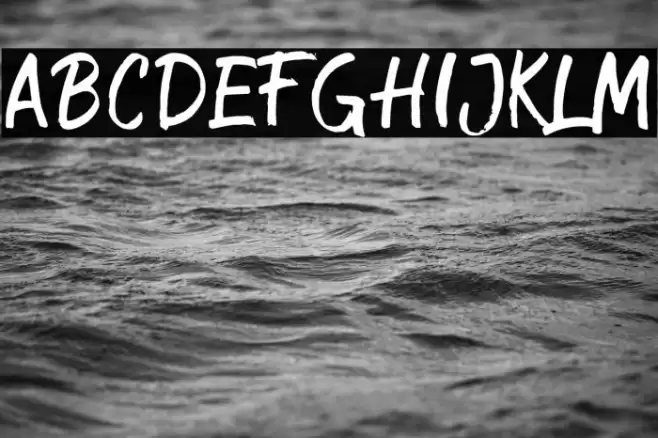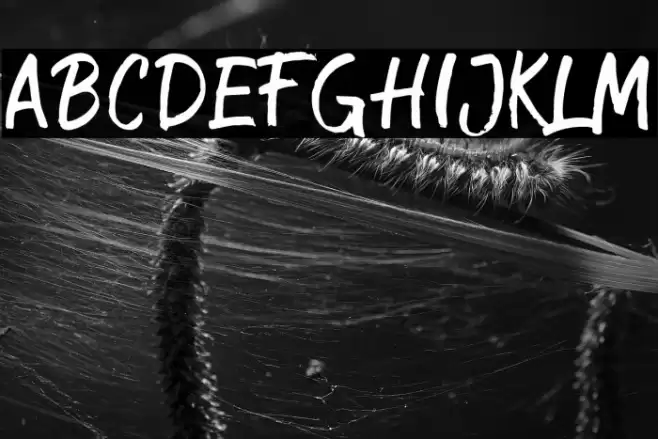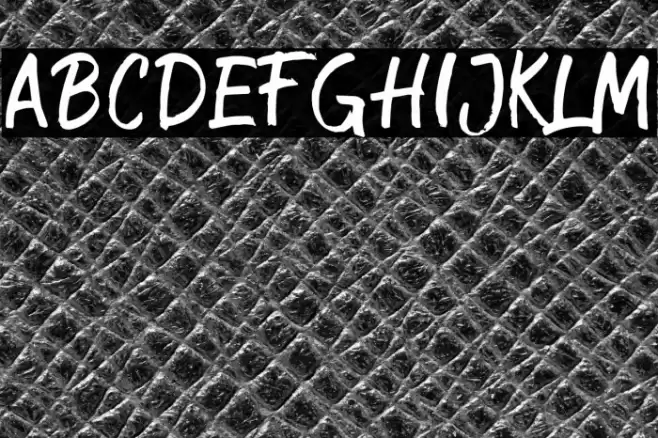
CrimsonBlackDEMO Font
CrimsonBlackDEMO Description
This font exudes a bold, energetic, and handwritten style, characterized by its dynamic brush strokes and slightly irregular letterforms. The uppercase and lowercase letters maintain a consistent flow, giving a sense of movement and spontaneity. The numbers and special characters follow the same aesthetic, ensuring uniformity across all glyphs. The font's design is both expressive and legible, making it suitable for creative projects that require a personal touch. Its unique style captures attention while maintaining readability, making it versatile for various design needs.
A bold, handwritten font with dynamic brush strokes and expressive letterforms from Uncategorized fonts.
- Proposed Projects: Ideal for branding, posters, social media graphics, and any project needing a personal, artistic touch.